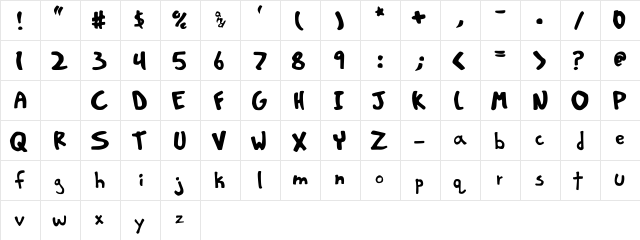
Dobbscomic Bold
Design Context for Dobbscomic Typeface
Dobbscomic trades formality for fun, with bouncy, characterful letterforms that bring warmth and energy to any project.
Font Pairing: Pairs well with a rounded or humanist sans for body copy, maintaining the friendly tone without relying on Dobbscomic to carry extended reading.
Pro Tip: Avoid using Dobbscomic for long passages of text — it works best for headlines, labels, and short calls to action.